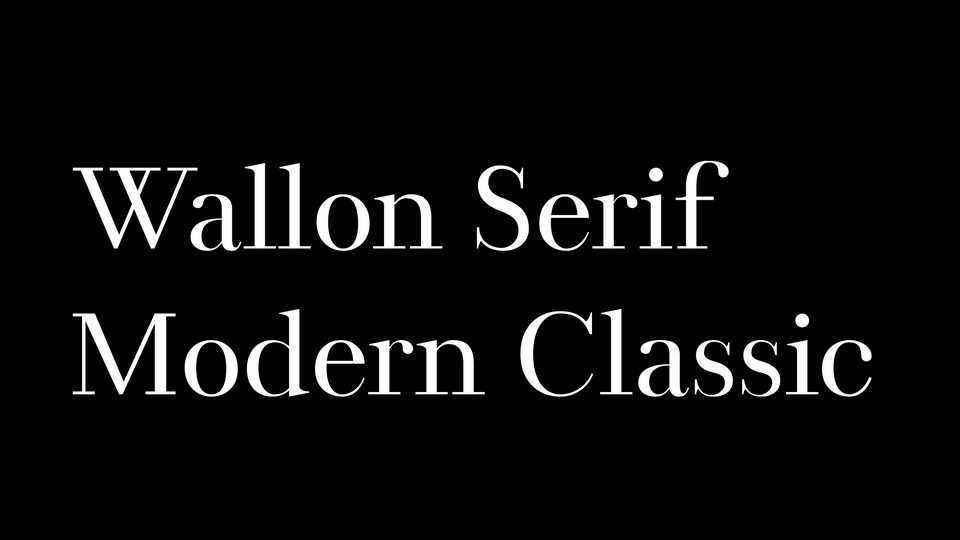
Download Wallon Serif font, a high-contrast serif font inspired by transitional typefaces with contemporary elements in character shapes and stroke details.
Designer: Jeong-il Seok